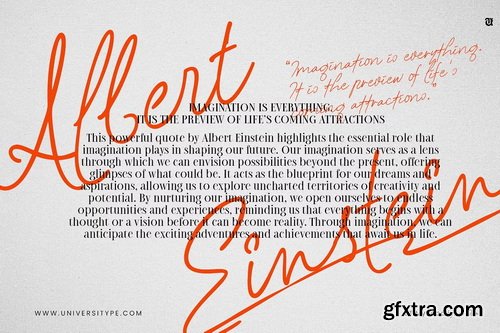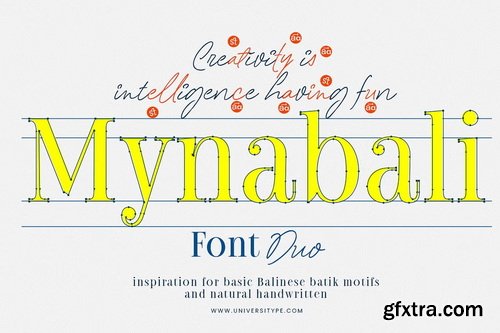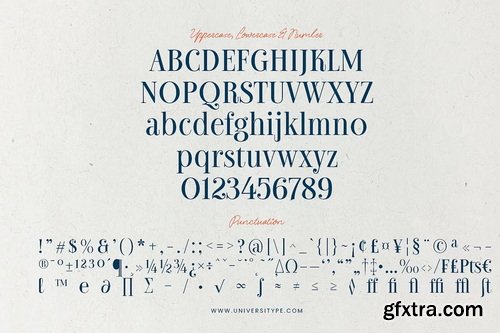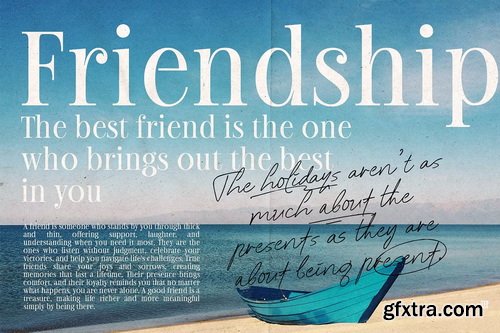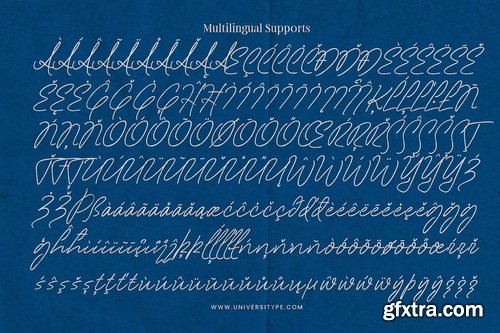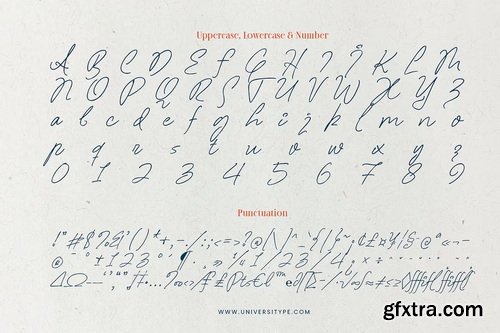
UT Mynabali Font Duo is where classic elegance meets natural charm. This typeface set combines a refined serif with a fluid, expressive script, creating a perfect harmony of sophistication and warmth. Inspired by the rich artistry of Balinese culture, it brings a sense of tradition while feeling fresh and contemporary. Whether you’re designing a high-end brand, an editorial layout, or elegant invitations, UT Mynabali gives your work a distinctive and timeless voice.
Key Features
• Serif & Script Duo: A striking serif with sculpted details pairs beautifully with a handwritten script full of personality
• Elegant Ligatures & Stylistic Alternates: Add flair and uniqueness to your typography
• Multilingual Support: Covers a range of Latin-based languages
• Timeless & Versatile: Works seamlessly for branding, packaging, print, and digital projects